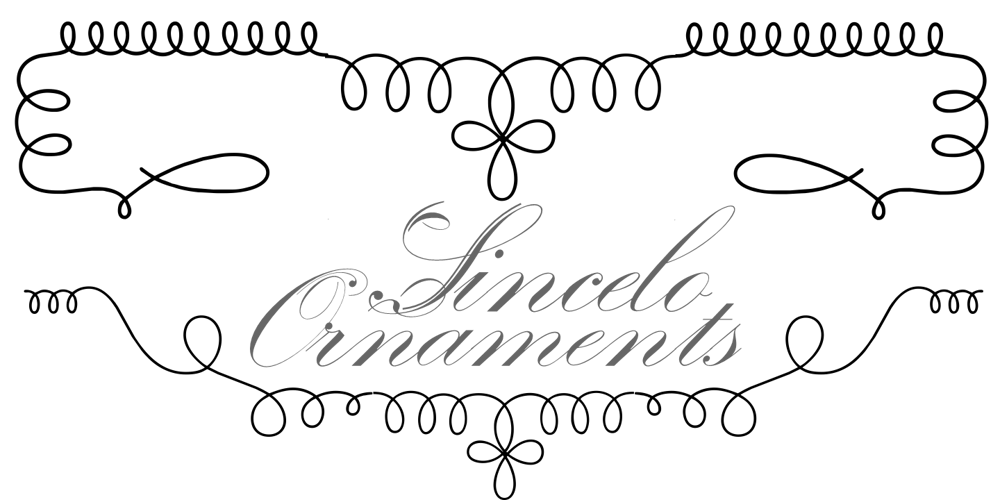
Sincelo Ornaments
Sincelo Ornaments font
Sincelo Ornaments Font Family was designed by Paulo W and published by Intellecta Design. Sincelo Ornaments contains 1 styles and family package options. Sincelo Ornaments is a well crafted display font with over 200 gliphs to create intrincate and soft artworks.